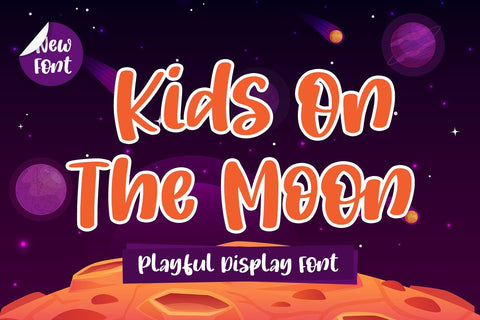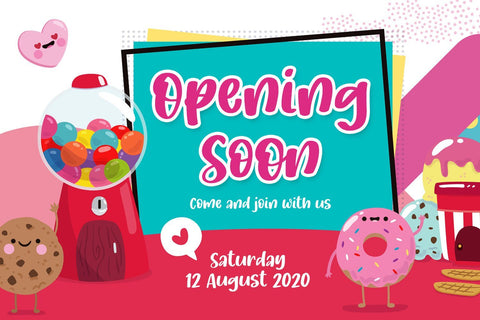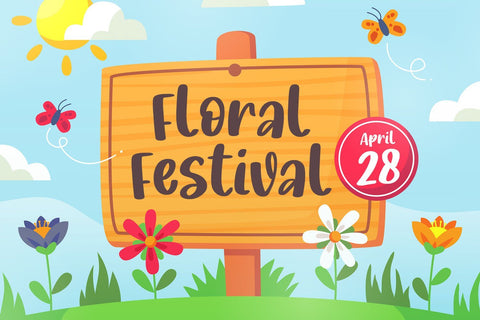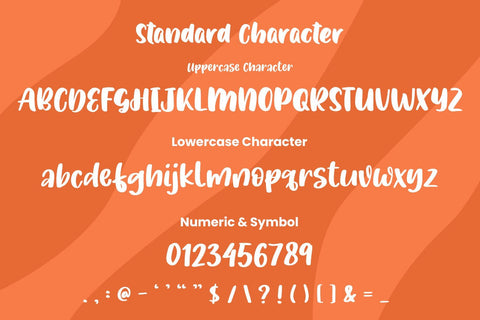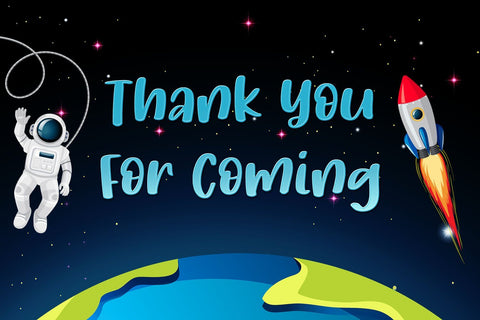
Kids on the Moon - Playful & Cute Display Font
Kids On The Moon is a playful and friendly display font. It features a cute and joyful style that will take your designs to the next level!
This font is perfect for many different projects such as logos & branding, invitation, stationery, wedding designs, social media posts, advertisements, product packaging, product designs, label, photography, watermark, special events or anything.